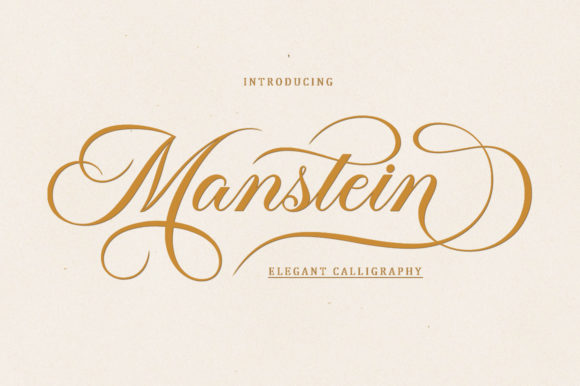
Introducing the exquisite Manstein Font, a captivating addition to your font collection that is bound to mesmerize you! Crafted with precision and finesse by the talented team at Mastertype, this script font is a true masterpiece. Whether you're looking to elevate your product packaging, create a stunning branding project, design magazine covers, or make an impact on social media, Manstein is your ultimate go-to font!
With its stylish and slim design, Manstein Font exudes elegance and sophistication. Its graceful curves and delicate strokes add a touch of charm to any text, making it perfect for those special occasions like weddings. Transform your wedding invitations, place cards, and save-the-date cards into works of art that leave a lasting impression on your guests.
But Manstein Font is not limited to just weddings! Its versatility allows it to be used in various contexts, letting you express your words with flair and creativity. Whether you're designing a logo, creating social media graphics, or adding a personal touch to your blog, this font effortlessly captures attention and evokes emotion.
The beauty of Manstein Font lies not only in its aesthetics but also in its functionality. Its legibility ensures that your message is conveyed clearly and effectively, while its distinct style sets you apart from the ordinary. Stand out from the crowd and make a statement with this unique font that exudes professionalism and class.
Turn your vision into reality with Manstein Font – the perfect choice for those who seek sophistication, creativity, and a touch of magic in their designs.